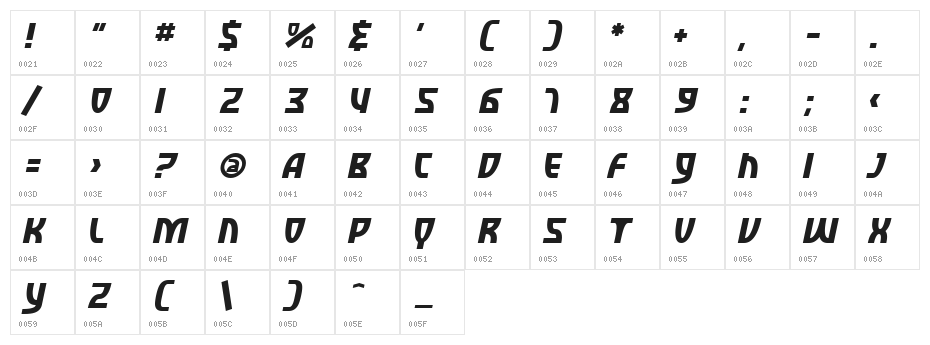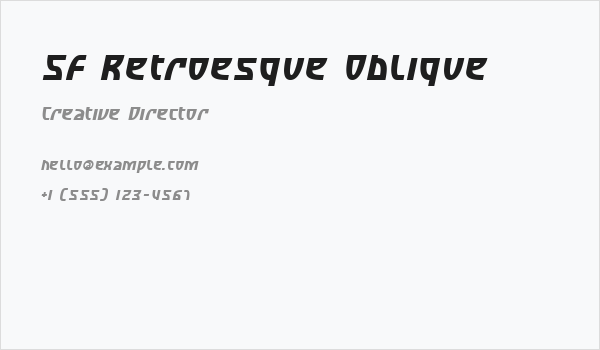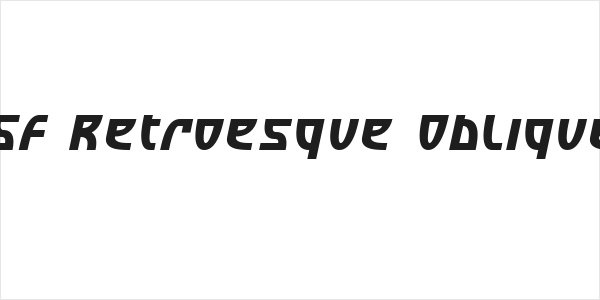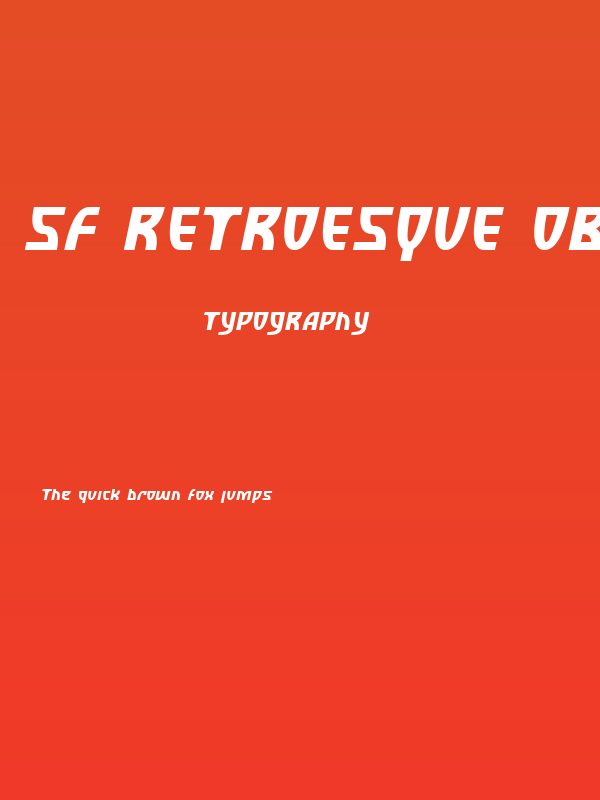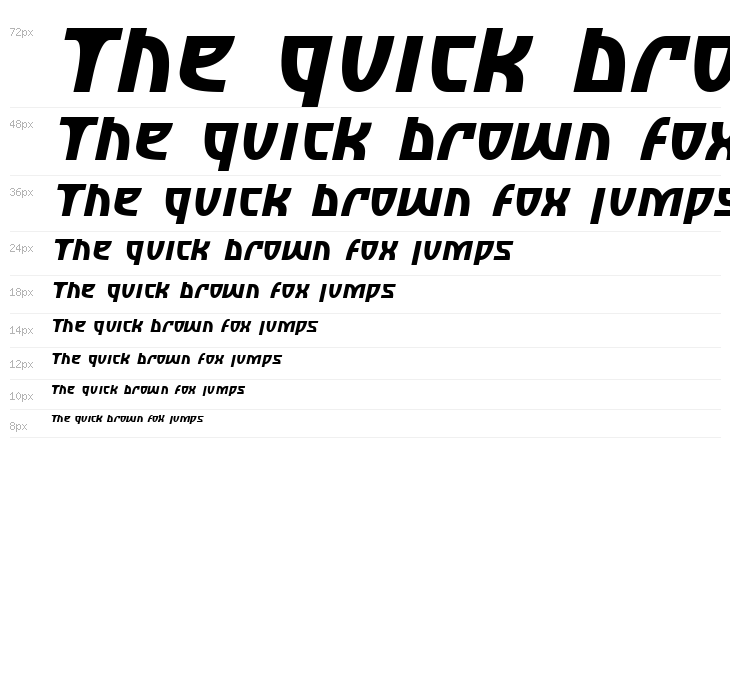
SF Retroesque Oblique Font
SF Retroesque Oblique Description
This font features a dynamic and futuristic style with a distinct oblique slant, giving it a sense of motion and energy. The characters are bold and angular, with sharp edges and a geometric structure that evokes a retro-futuristic aesthetic. The uppercase and lowercase letters maintain a consistent style, with the lowercase slightly more rounded. Numerals and special characters are designed to match the overall theme, ensuring uniformity across all glyphs. The font's unique style makes it suitable for projects that require a bold and modern look with a touch of nostalgia.
| Overall Style | Modern, Retro-Futuristic |
| Proposed Projects | Ideal for sci-fi themed posters, video game graphics, branding for tech companies, and retro-inspired designs. |